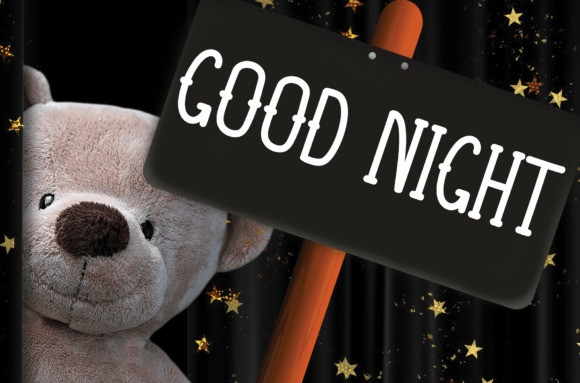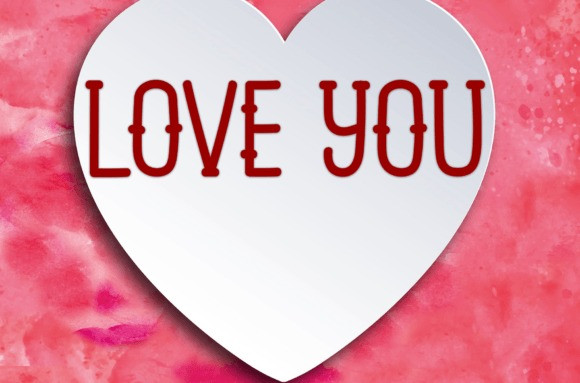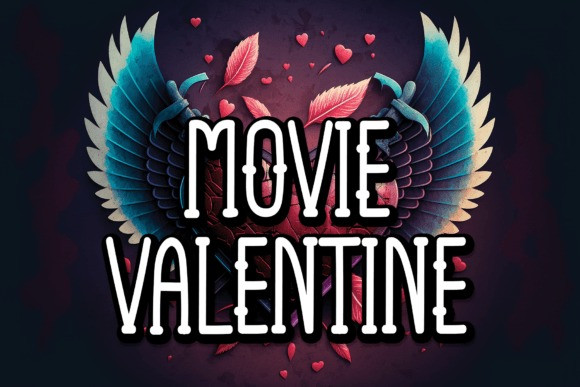
Movie Valentine Font
Movie Valentine Font is a sweet and friendly handwritten display font. Creative and cute, this font is ideal for writing wedding invitations, cards, or any other design that might need a fun touch!